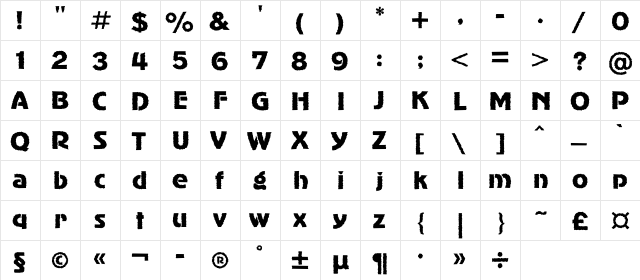
AdverGothicRoughC Regular
Design Context for AdverGothicRoughC Typeface
AdverGothicRoughC embraces imperfection — its rough, textured character adds raw authenticity to designs that want to feel lived-in and unconventional.
Suited to punk-influenced zines, underground music branding, streetwear, and raw, anti-corporate design.